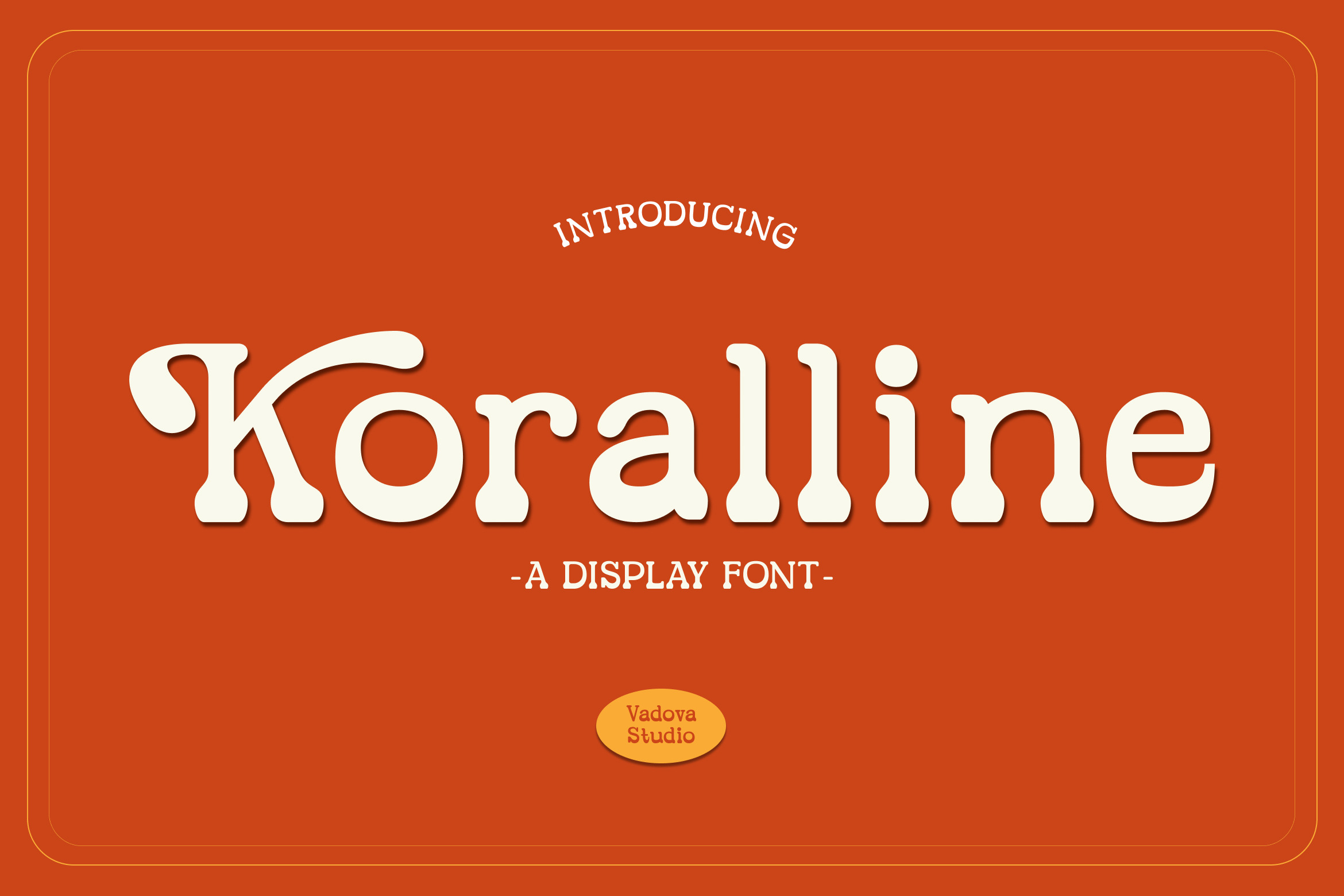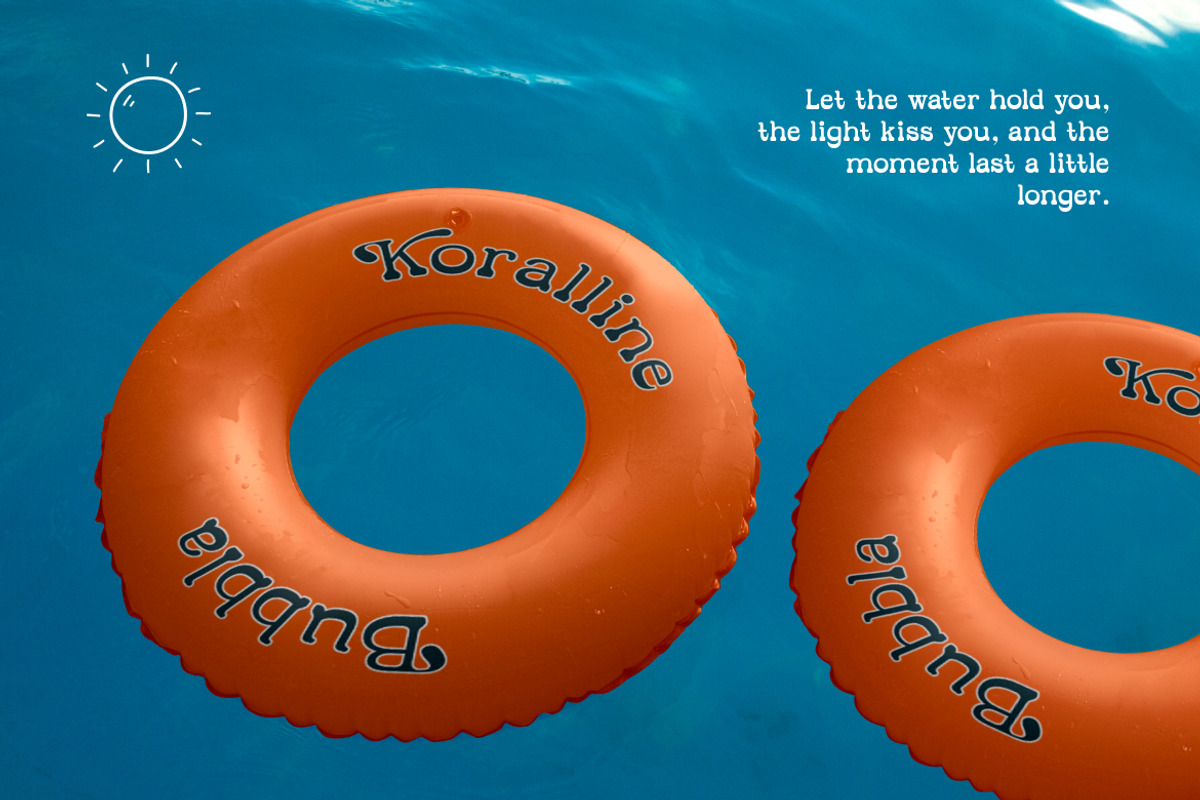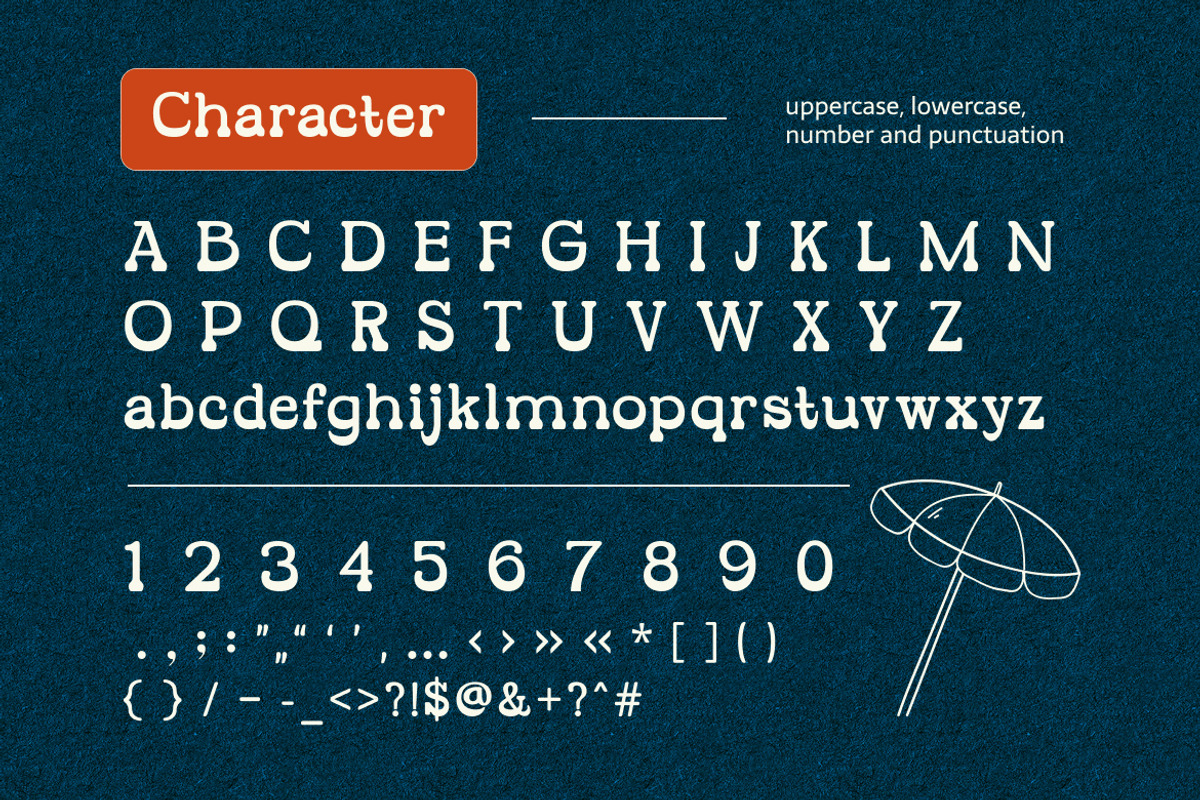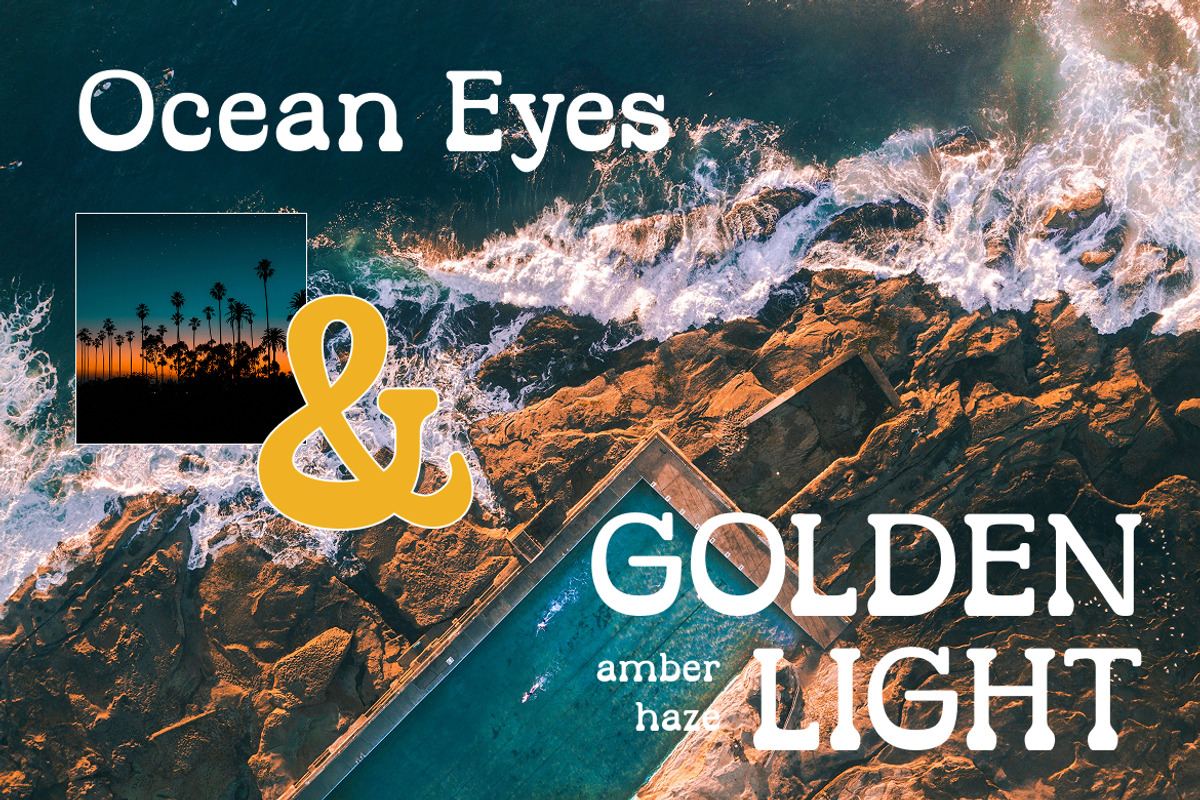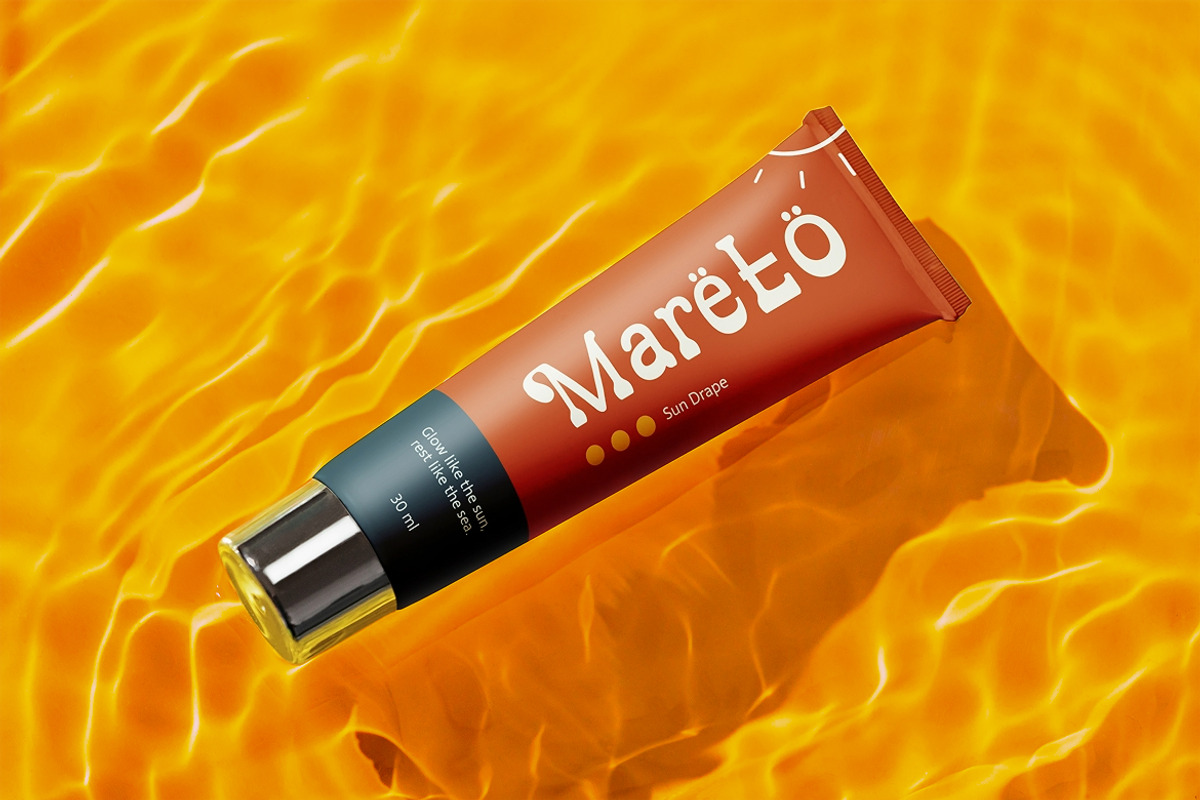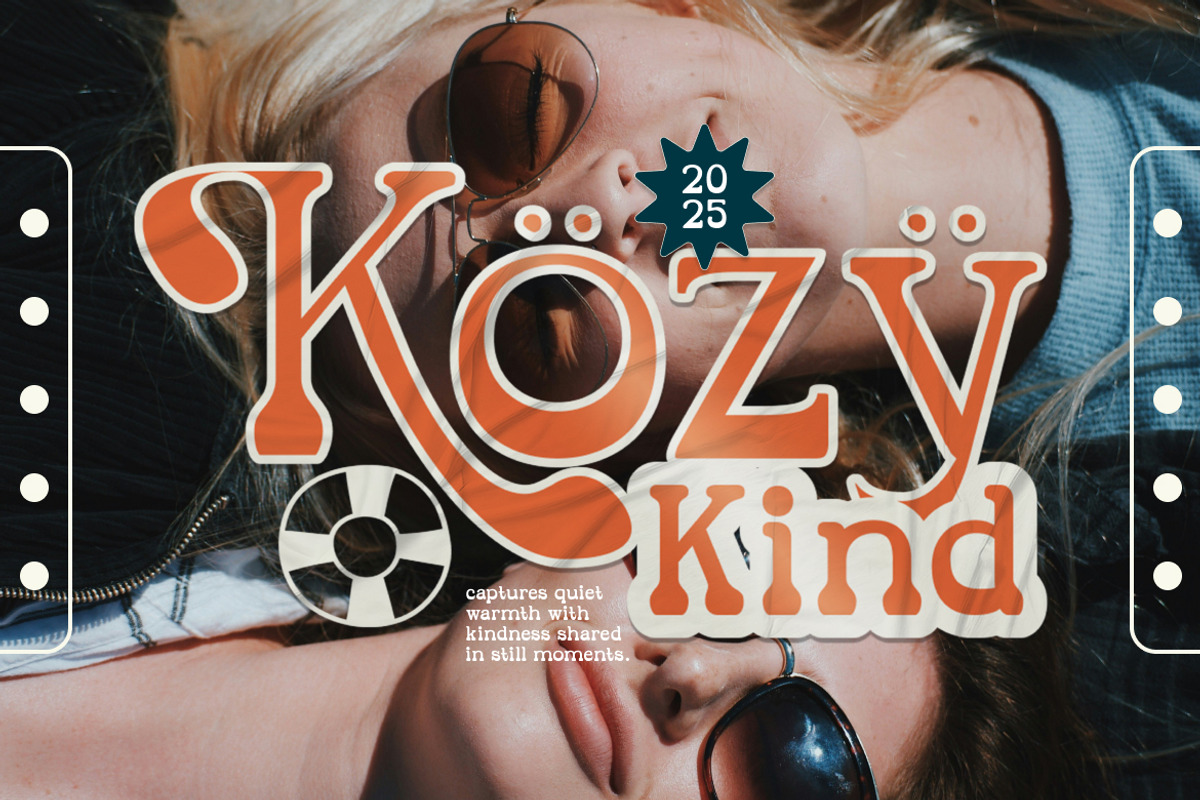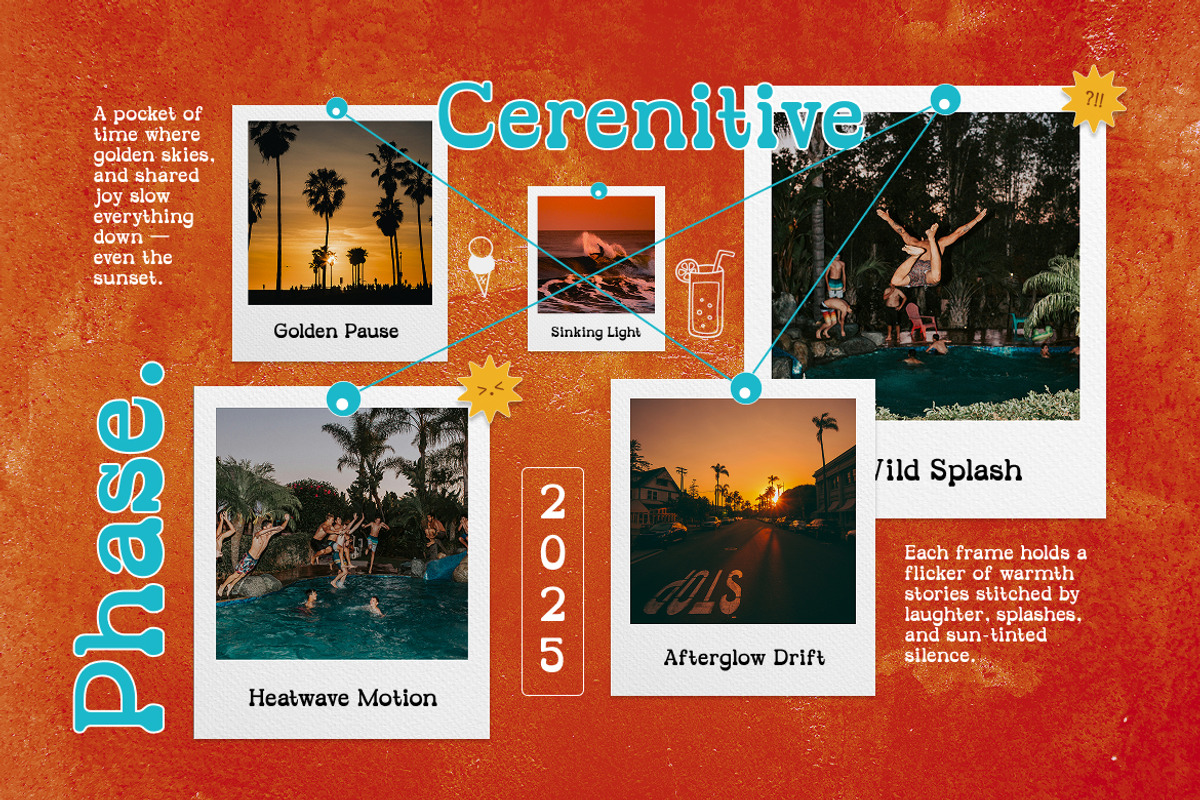
Koralline Display Font
Koralline is a bold and playful display font inspired by retro typography with soft curves and charming character shapes. Designed to feel warm, friendly, and nostalgic, this font features chunky forms, smooth terminals, and distinctive vintage flair that instantly draws attention. Koralline is perfect for headlines, branding, posters, packaging, and creative layouts that need a fun yet confident retro touch.
Koralline is ideal for designs that want to stand out with personality and retro charm. Its bold shapes and soft curves make it perfect for branding, packaging, posters, logos, product labels, editorial headlines, and social media graphics. Best used for titles and short text where strong visual impact and character are essential.
- Bold retro display design with soft, rounded serif forms
- Playful character shapes inspired by classic vintage typography
- Smooth curves and chunky strokes for strong visual impact
- Friendly proportions that feel warm and approachable
- Optimized spacing for clear, eye-catching headlines and titles
- Branding and logo designs with a bold retro personality
- Posters, flyers, and event graphics that need strong visual impact
- Product packaging and labels with a playful vintage style
- Editorial headlines and magazine covers with character
- Social media graphics and marketing visuals that stand out
Koralline, a bold retro display font made for eye-catching designs